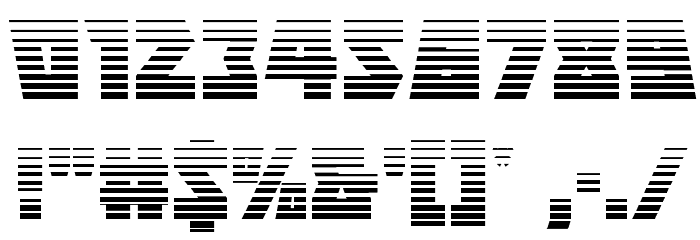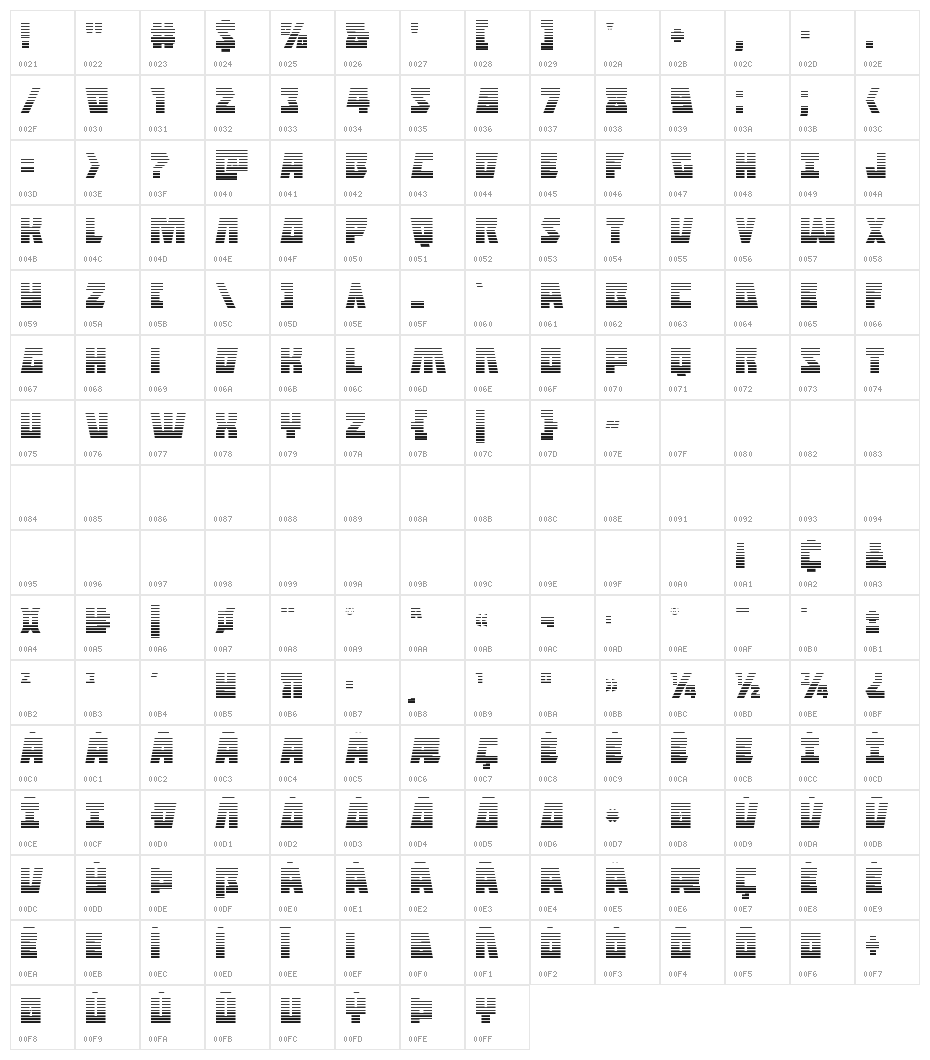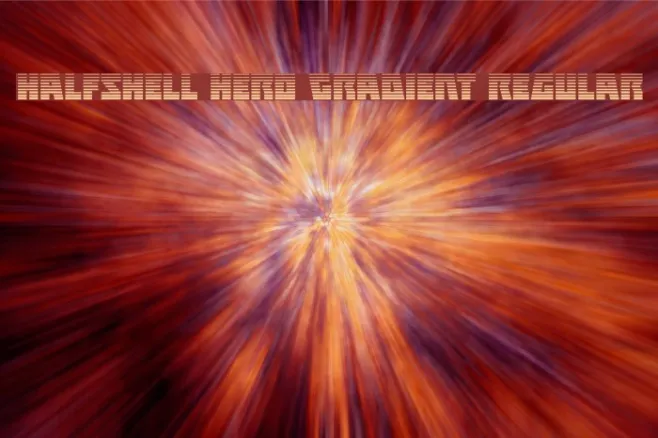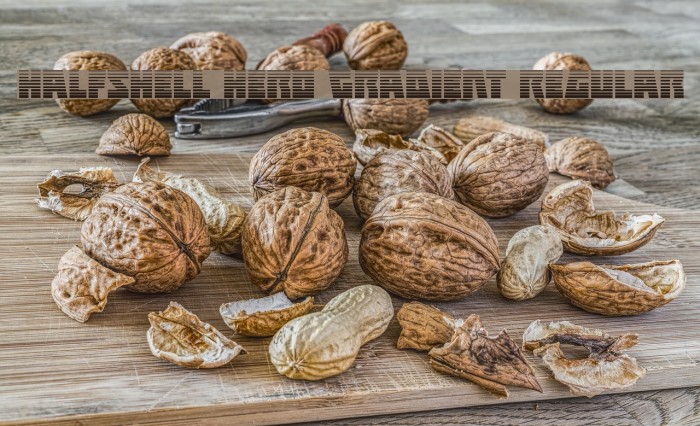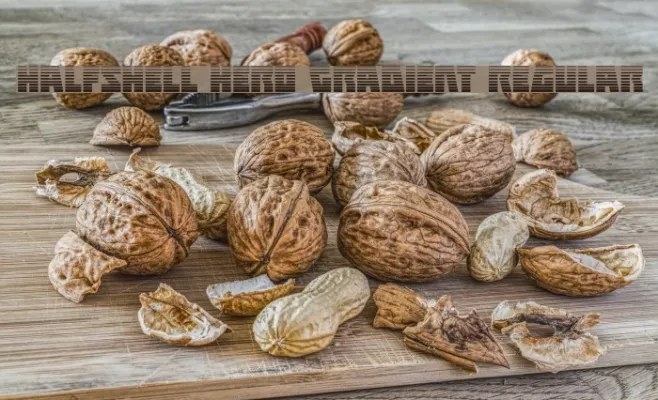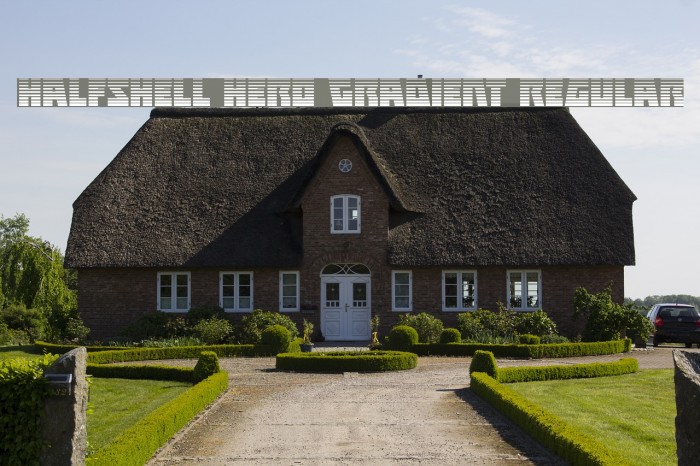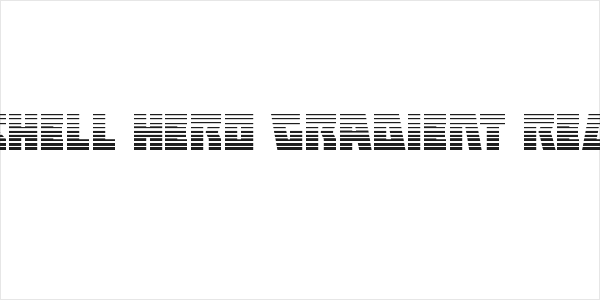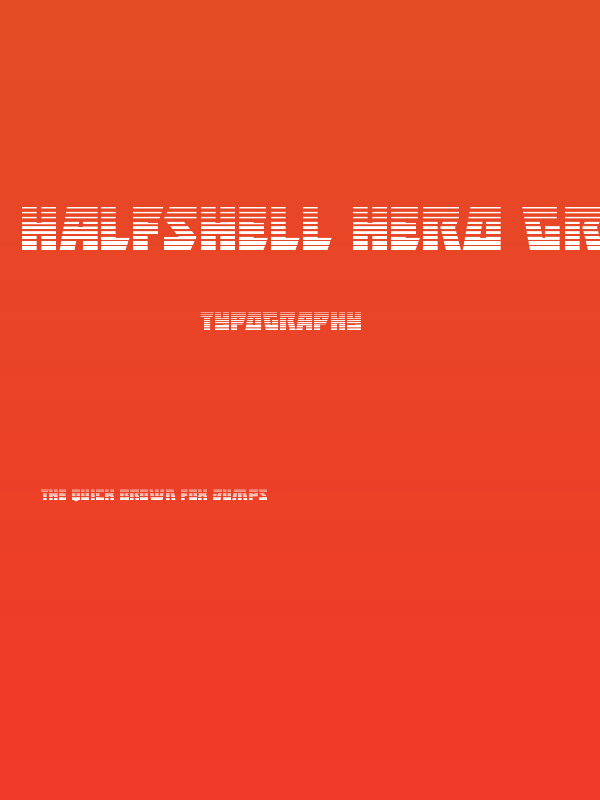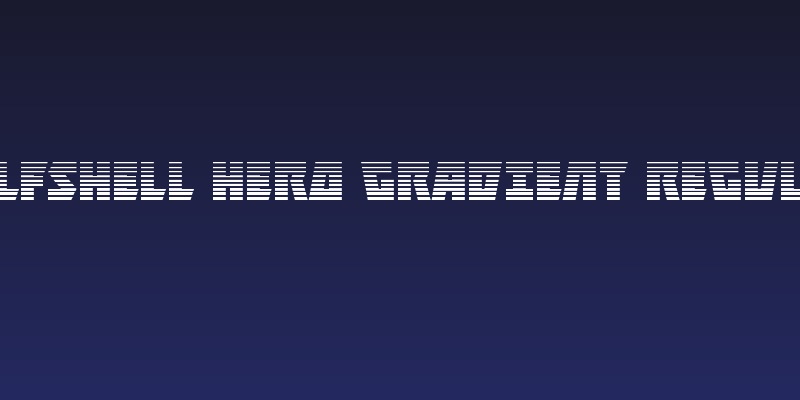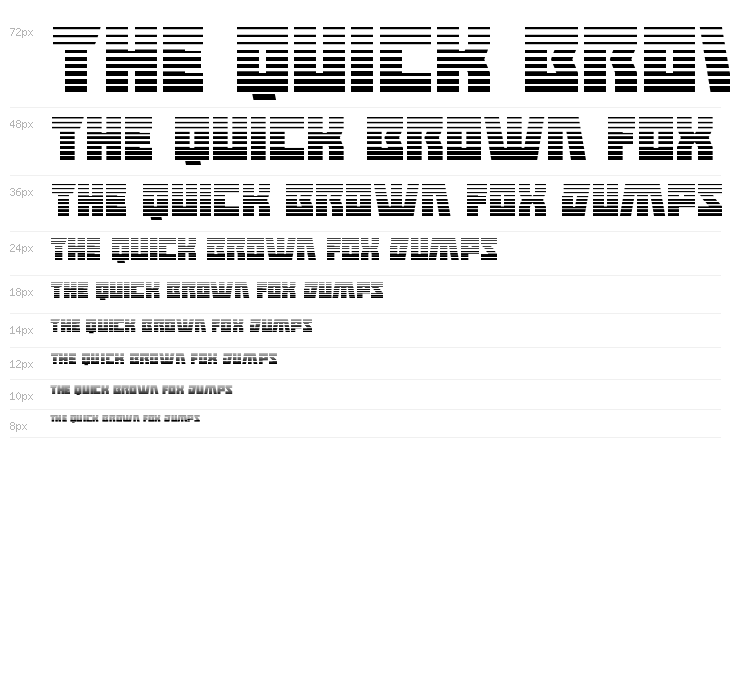
Halfshell Hero Gradient Regular Font
Halfshell Hero Gradient Regular Description
This font features a bold, geometric design with a unique striped pattern that gives it a modern and futuristic appearance. Each character is composed of horizontal lines that create a sense of movement and energy. The uppercase and lowercase letters maintain a consistent style, with sharp angles and clean lines. Numbers and special characters are designed to match the overall aesthetic, ensuring a cohesive look across all text. The font's distinct style makes it ideal for projects that require a strong visual impact.
| Proposed Projects | Ideal for branding, posters, video game graphics, and futuristic-themed designs. |